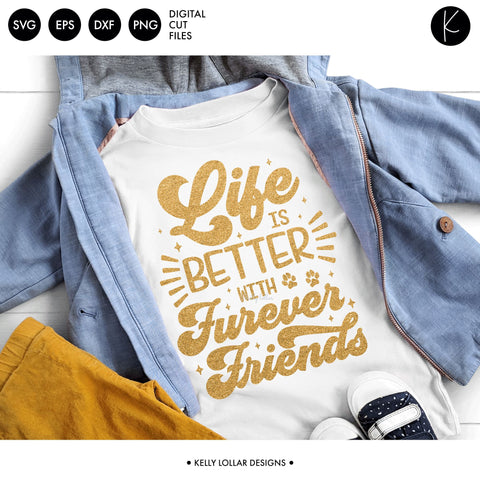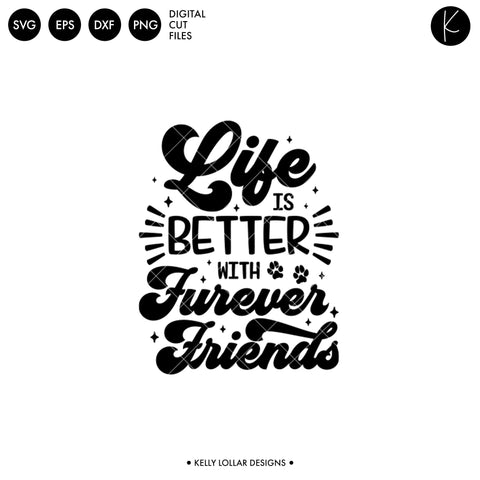
Life Is Better with Furever Friends
What would life be like without your favorite furry friend? Cat and dog lovers alike know just how special they are and the joy they bring when you give them a forever home. Celebrate that feeling with this fun, retro styled Furever Friend quote! As an added bonus, only the individual words and flourish groups are welded to give you complete freedom to move elements around or borrow them for a matching project.